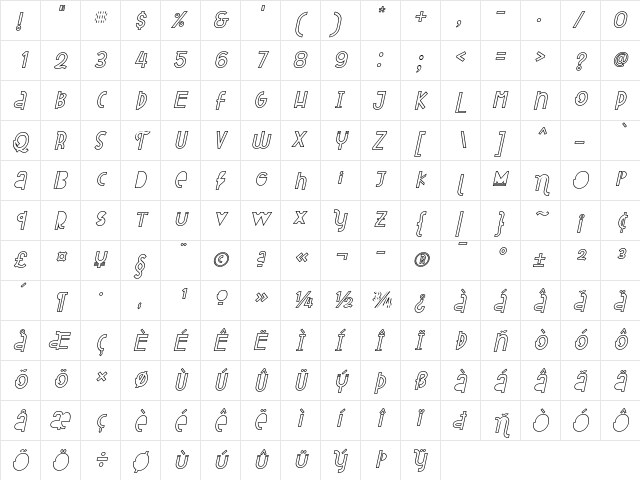
Attracted Monday Outline Italic
| Foundry | 7NTypes |
| Designer | Keithzo; Situjuh Nazara |
Design Context for Attracted Monday Outline Typeface
Attracted Monday Outline brings ornamental detail and strong personality to headlines and identities, where visual impact matters more than quiet functionality. Its italic angle brings a sense of urgency and motion to the letterforms.
Font Pairing: Pair with a clean neutral sans-serif for body copy to let Attracted Monday Outline's character lead without overwhelming the composition.
Pro Tip: Treat Attracted Monday Outline as the centrepiece of your typographic hierarchy. One strong heading set in a decorative face can carry an entire layout.